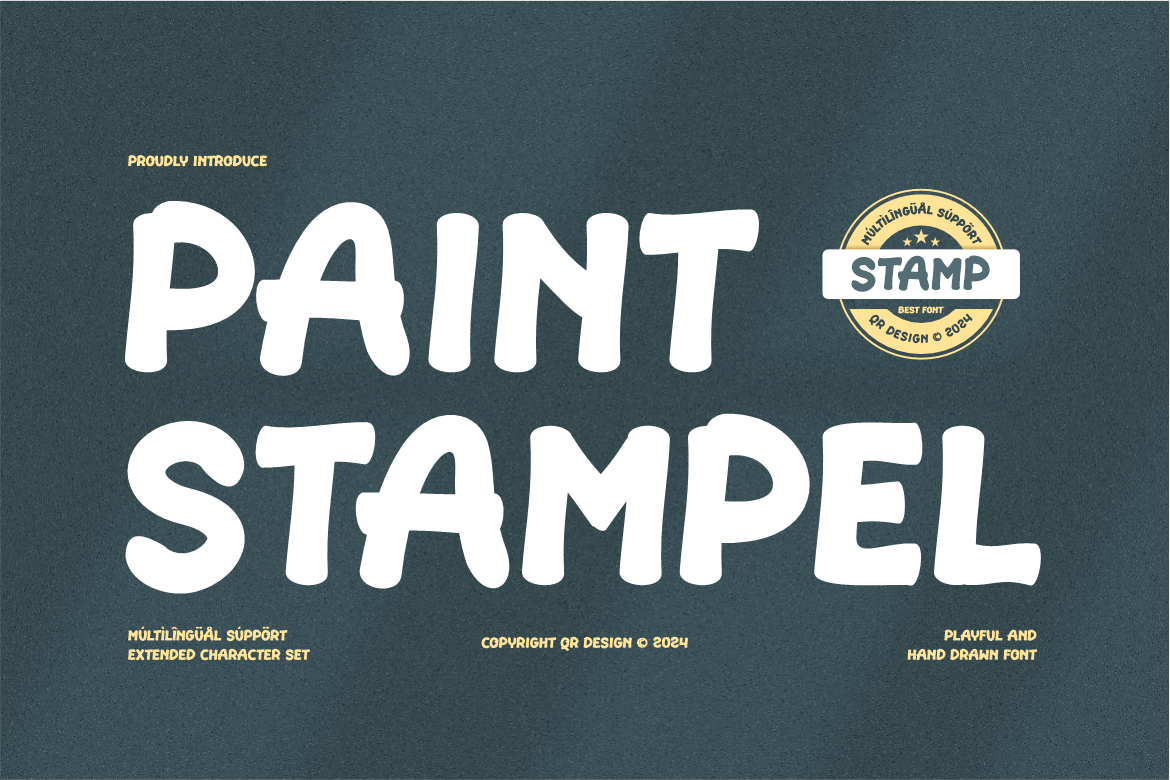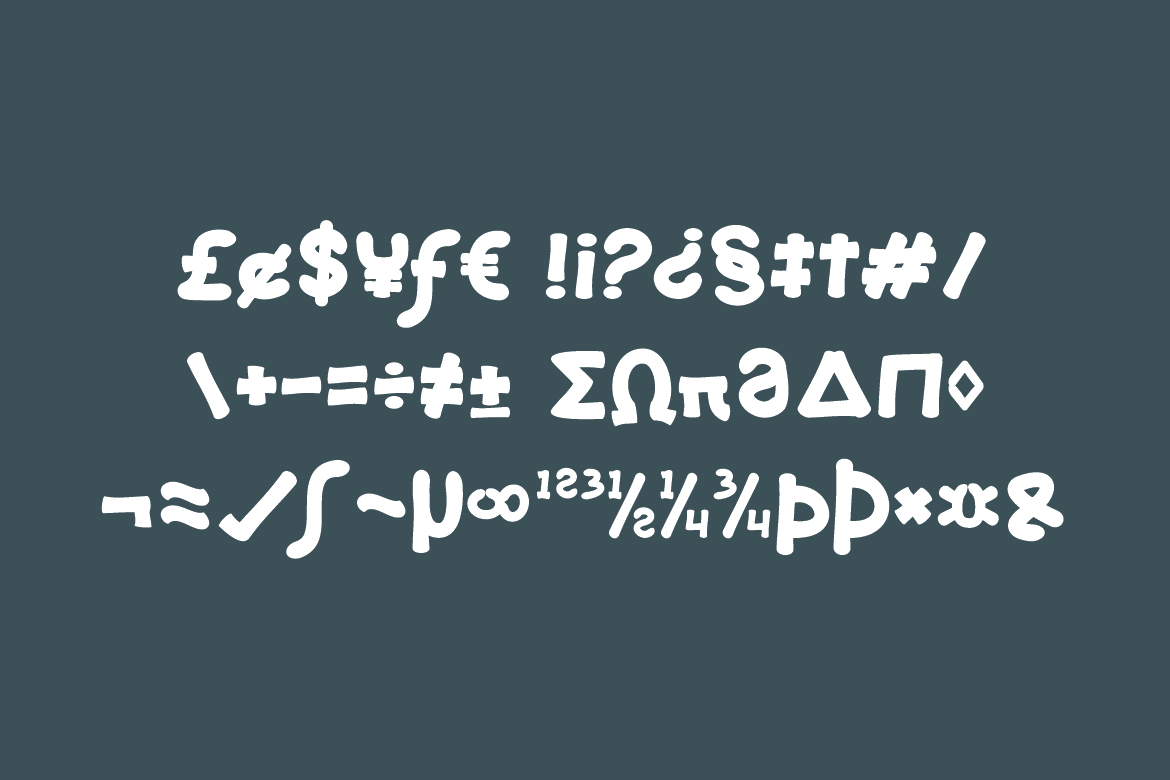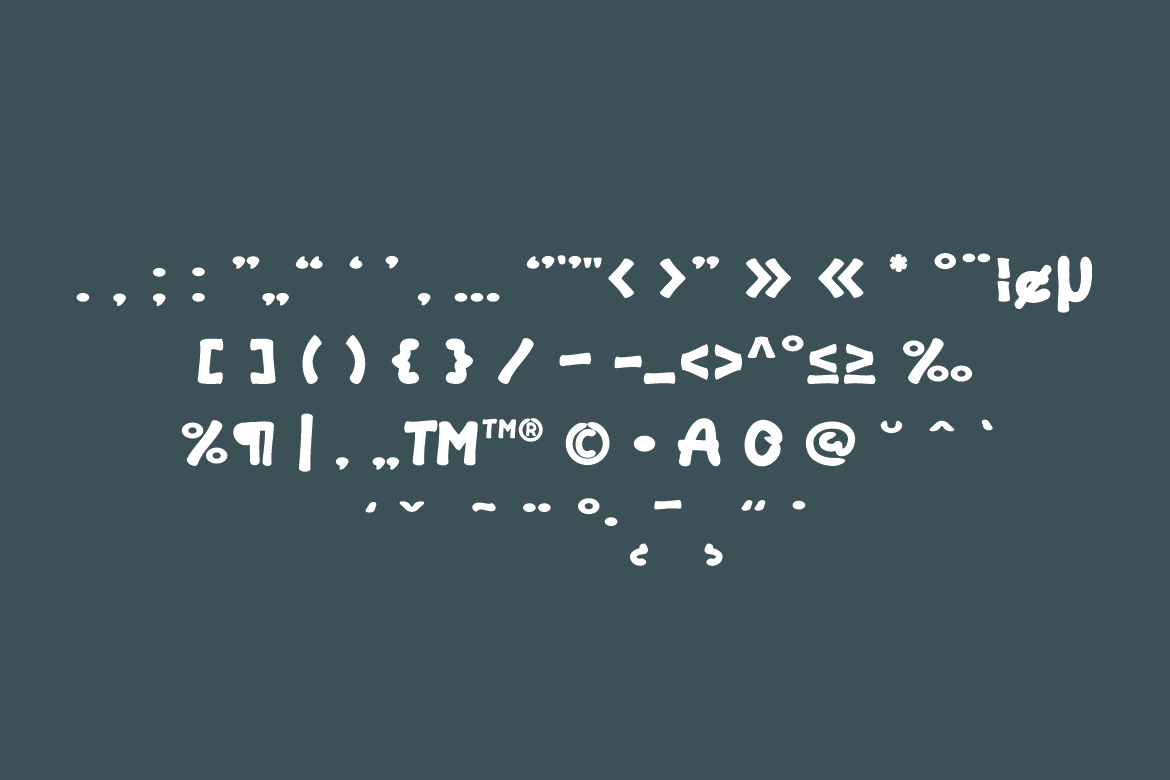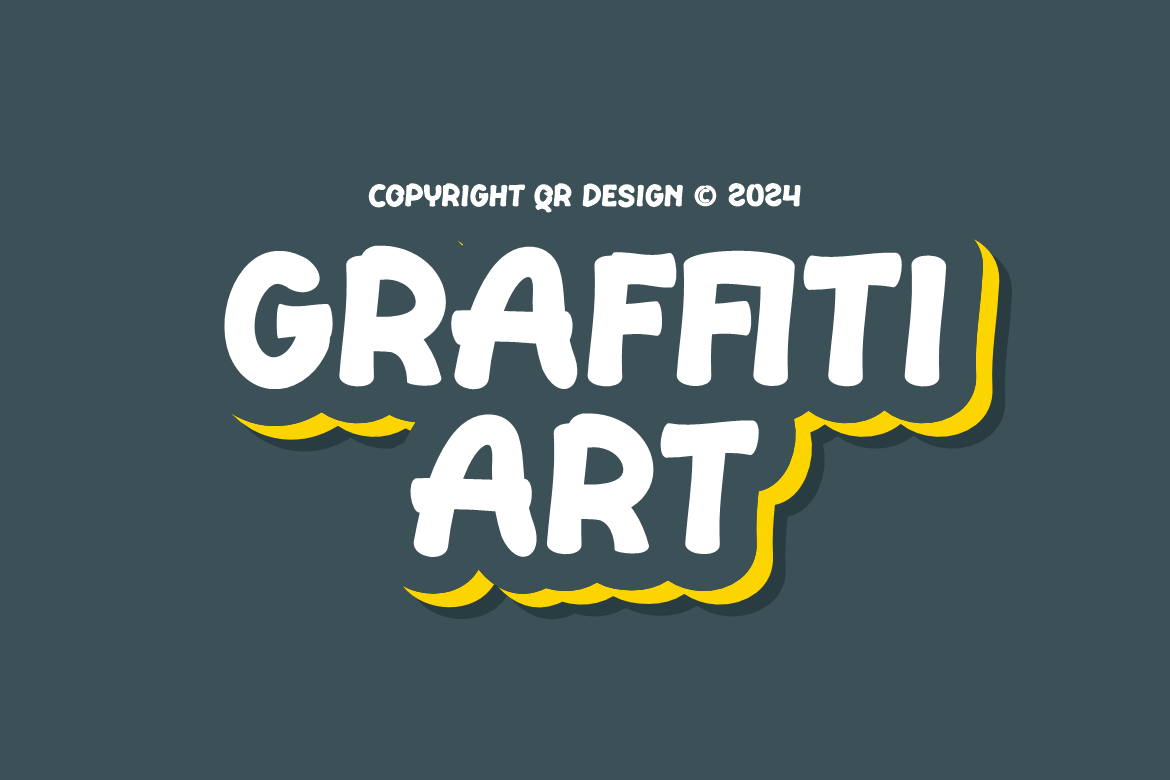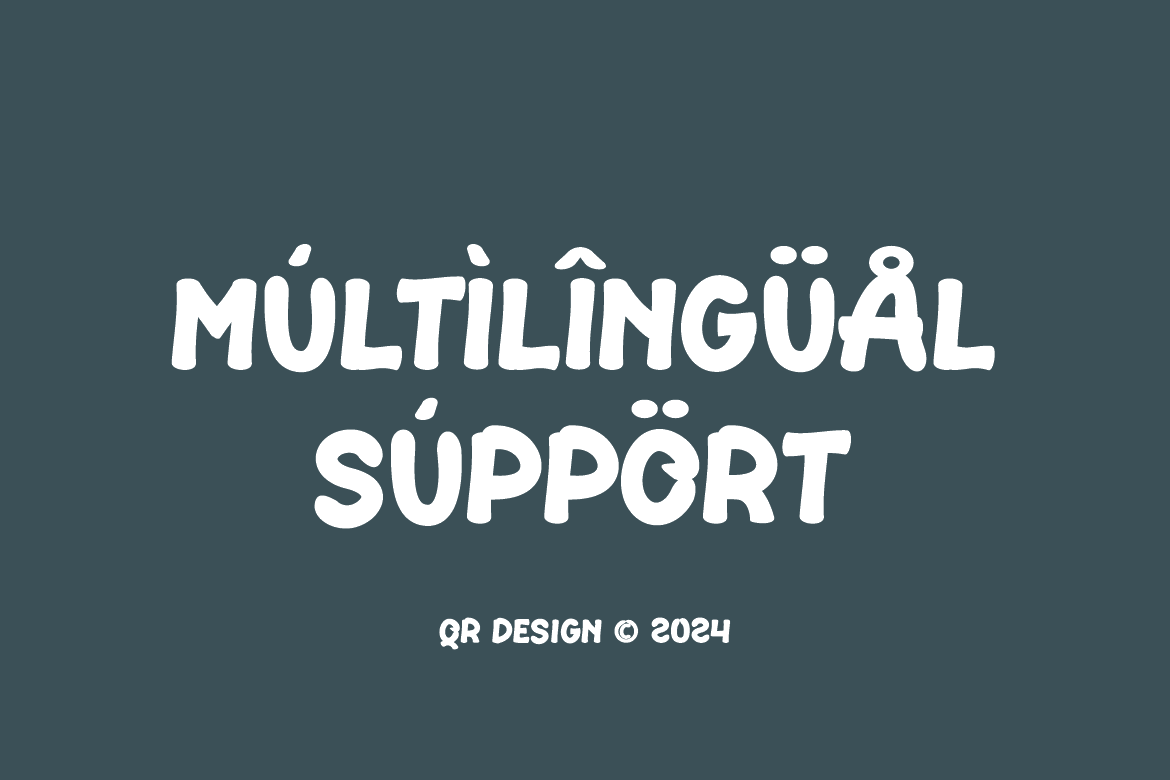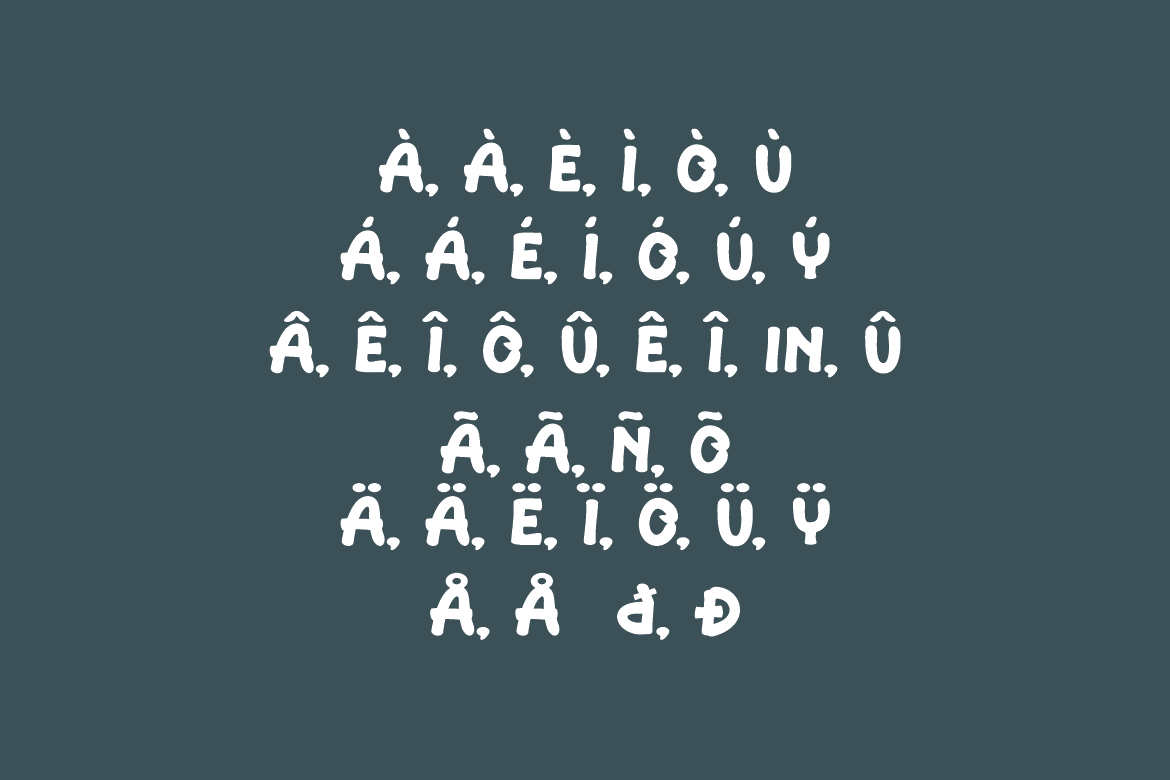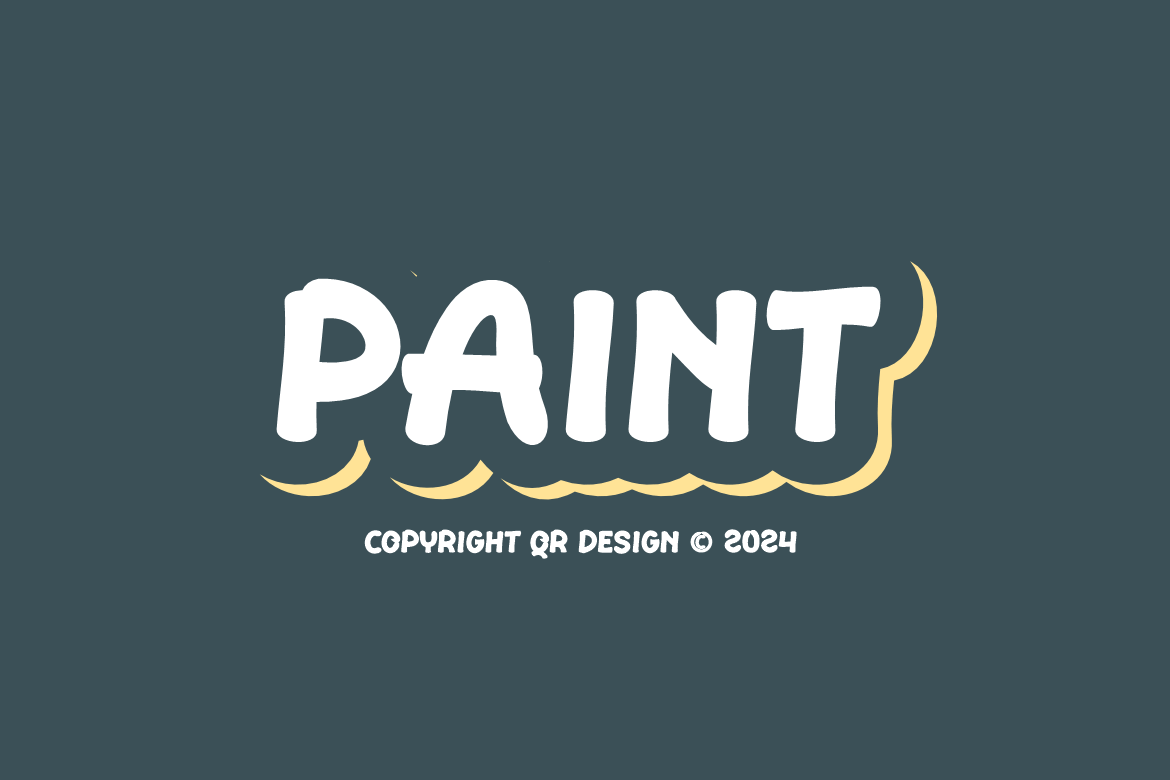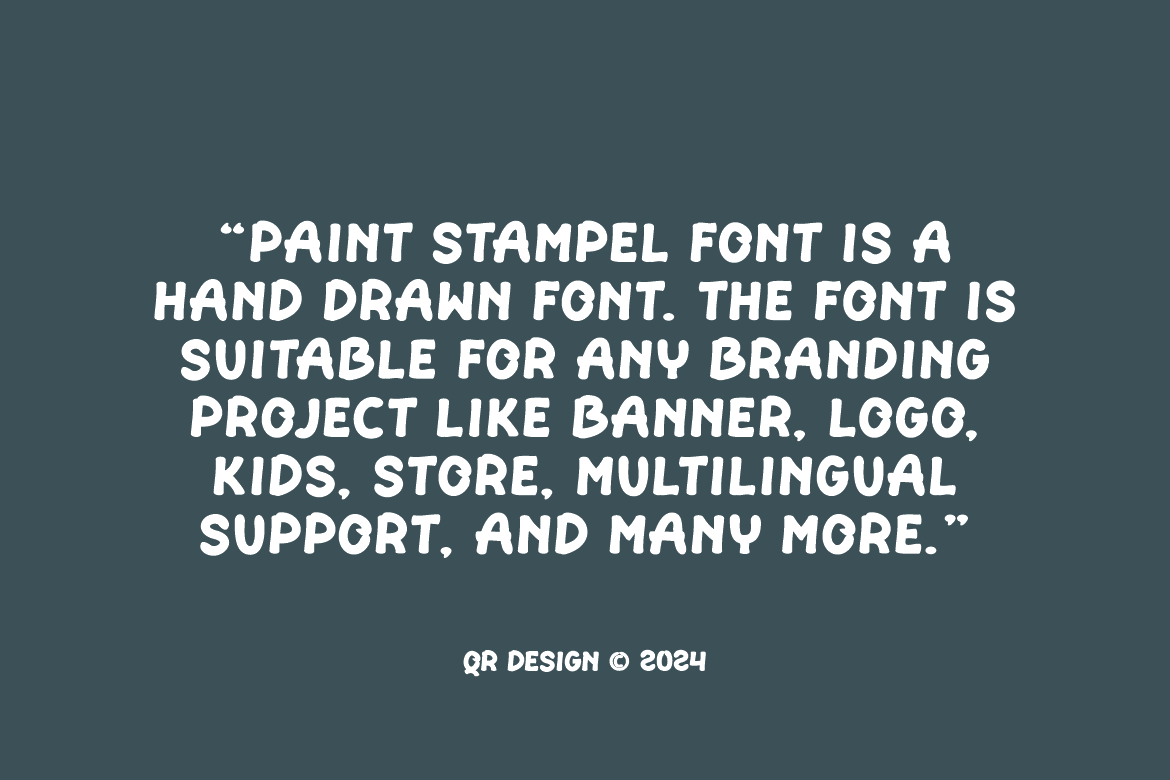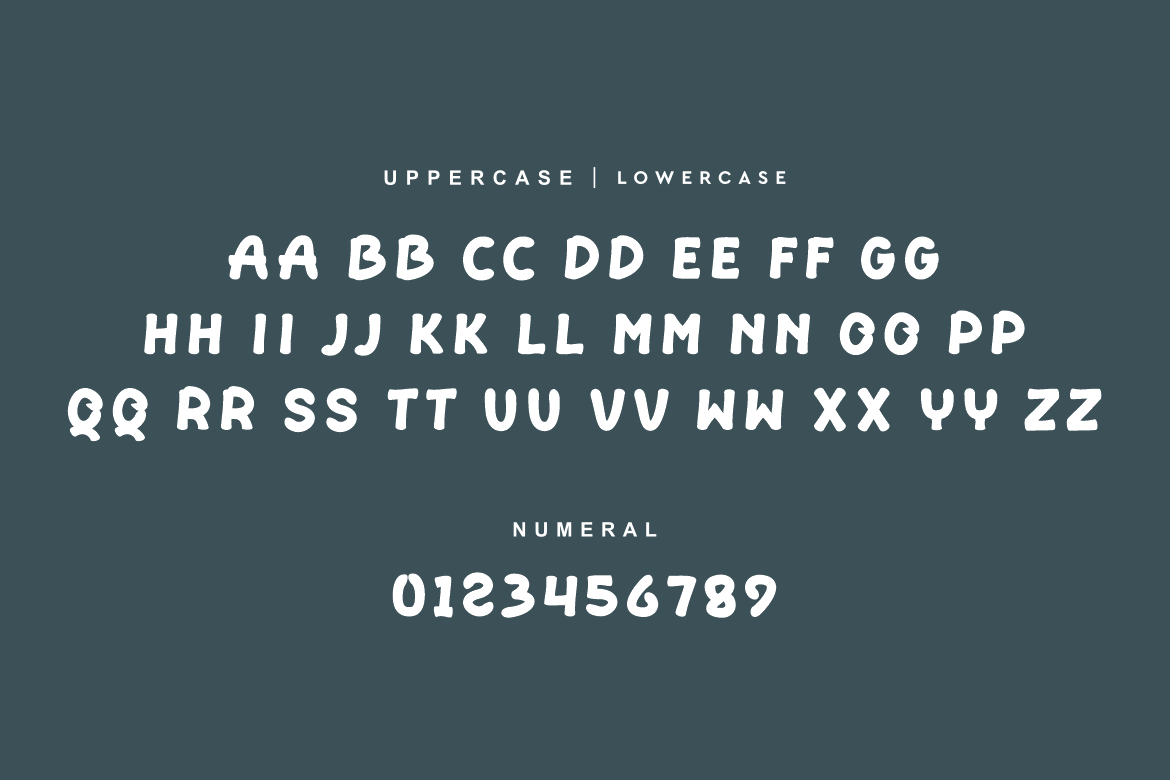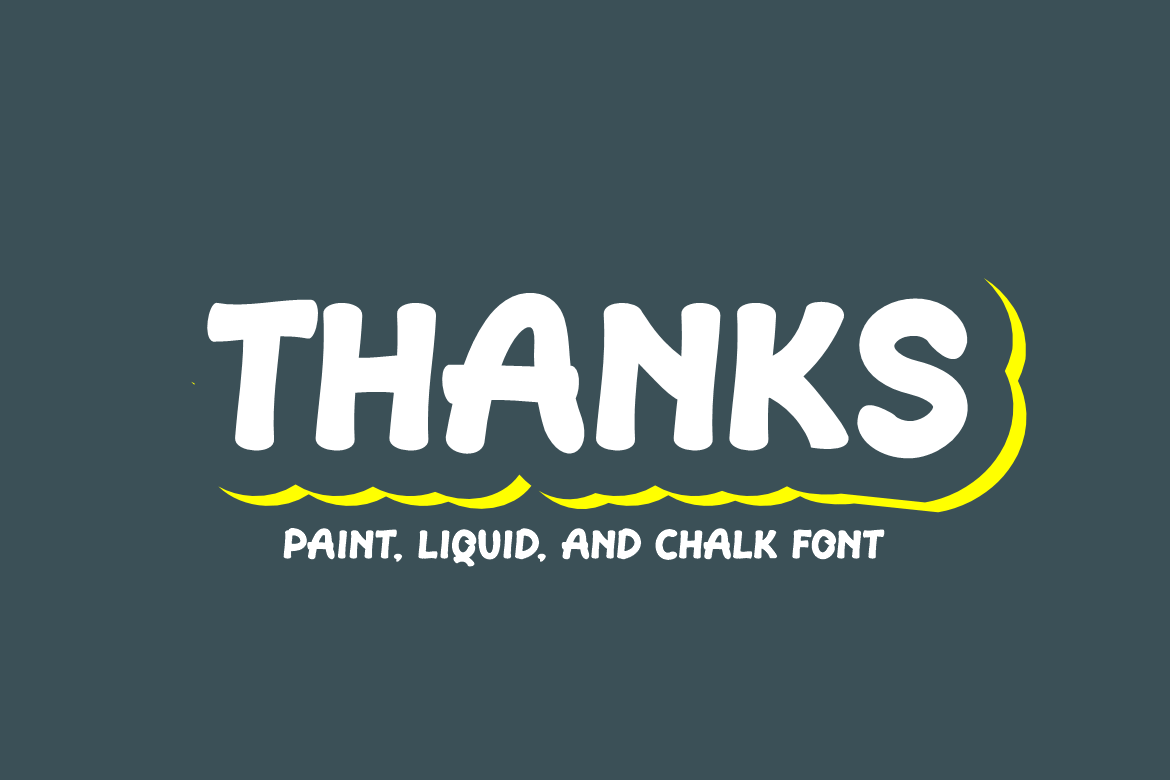
Paint Stampel – Chalk & Stamp Font
Paint Stampel Font is a hand drawn and authentic display font.
The font is suitable for any branding project like poster, logo, kids, and many more.
Outstanding in a wide range of contexts.
Main Features
- Ligatures & Alternate
- Numeral & Punctuations
- Extended Character Set